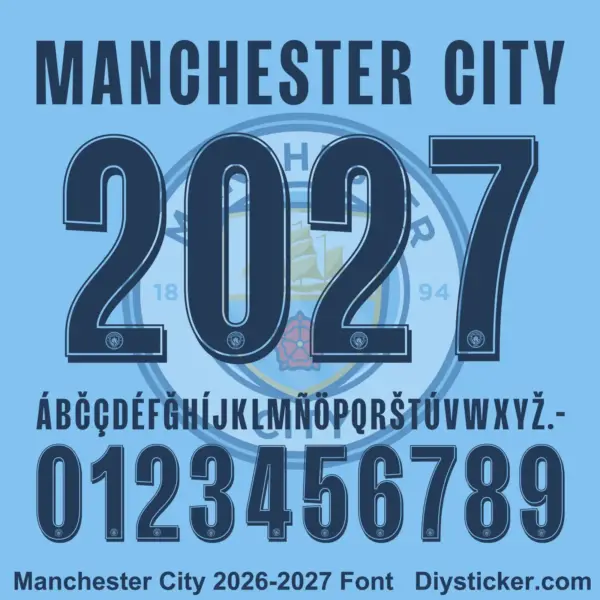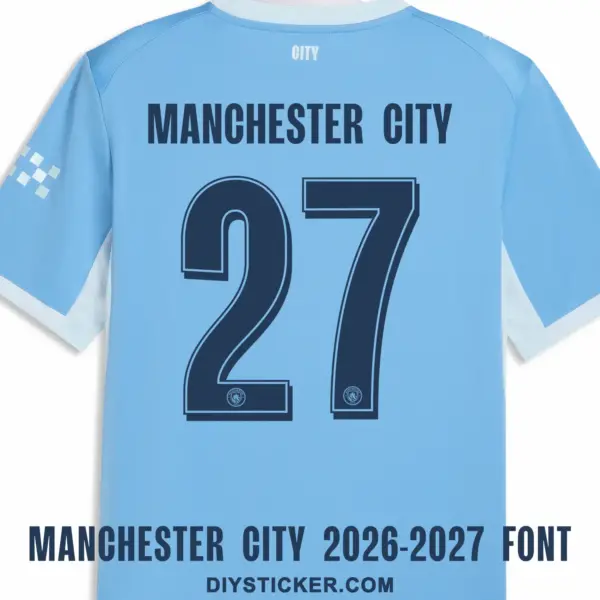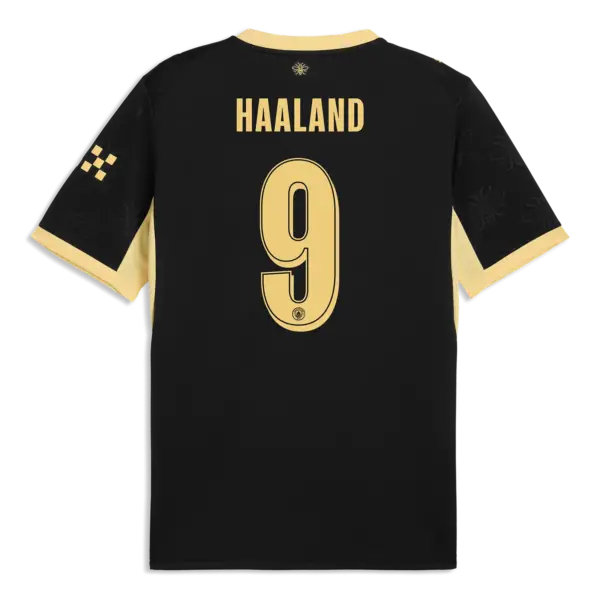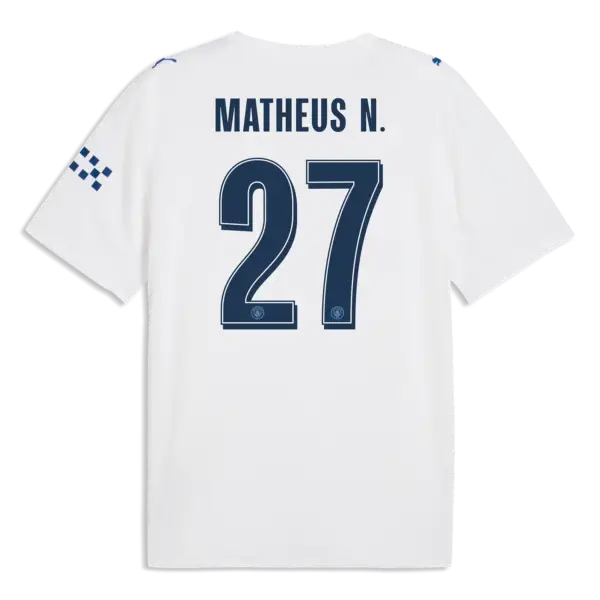
Bring Etihad Stadium excellence to your custom sports apparel catalog with this official kit typography pack! Designed for apparel decorators looking for an authentic Manchester City 2026-2027 font download, this digital asset package features the complete Man City 2026-27 kit font across Home, Away, and Third kit colorways. Engineered with condensed sans-serif lettering, subtle inline border detailing, and the official circular Manchester City crest embedded at the base of each digit, it is the ultimate custom jersey printing font Manchester City choice for vinyl cutters, heat transfers, and sublimation production.
Complete uppercase alphabet, Manchester City jersey numbers vector, and comprehensive international diacritics (including
Á,Č,É,Ğ,Í,Ñ,Ö,Š,Ú,Ž).
Elevate Your Kit Customization with the Manchester City 2026-2027 Font
Upgrade your custom sportswear production line with the official match-day cup typography for Manchester City! This digital asset pack delivers a complete Manchester City 2026-2027 font download tailored for cup competitions and custom shirt customization. Featuring clean, condensed uppercase lettering (MANCHESTER CITY, MATHEUS N., HAALAND) built for high visibility across back nameplates, alongside bold numeric glyphs accented with a crisp inline contour and the official circular club crest at the base, this design provides outstanding contrast across sky blue, white, and black kit fabrics.
Comprehensive Character Mapping
A-Z Uppercase Alphabet: Tall, condensed sans-serif letterforms designed for high legibility across player nameplates.
0-9 Custom Inlined Squad Numbers: Bold numeric glyphs styled with thin inner contour lines and the official Manchester City crest embedded at the bottom (supplied as Manchester City jersey numbers vector).
Special Accents & Diacritics: Extended set of punctuation marks and international accents (
Á,Č,Ç,É,Ğ,Í,Ñ,Ö,Š,Ú,Ž, etc.) to accurately render custom star player names using this custom jersey printing font Manchester City package.